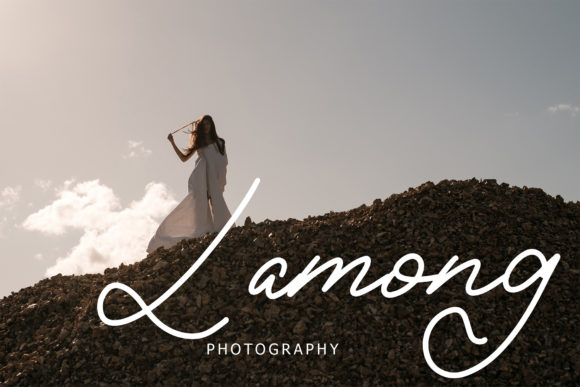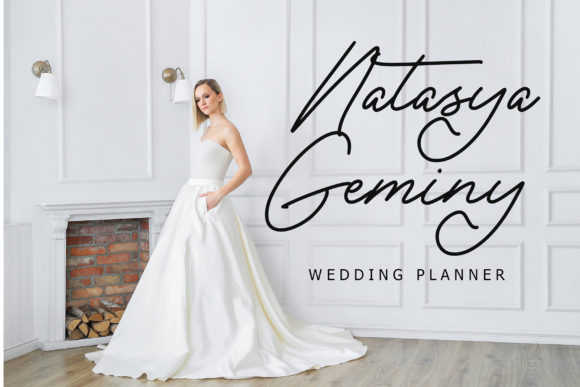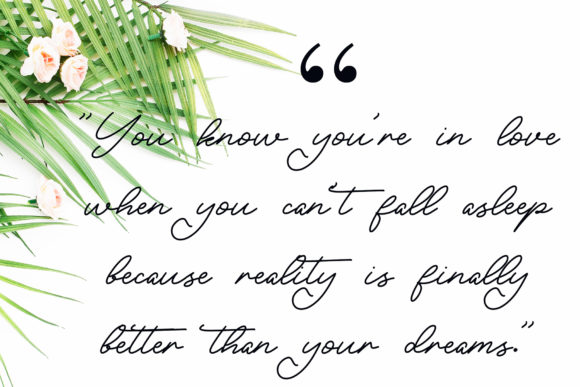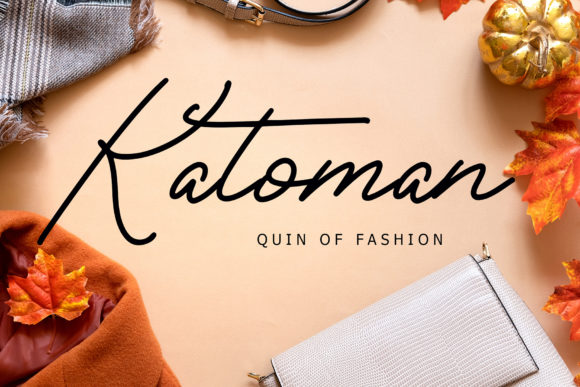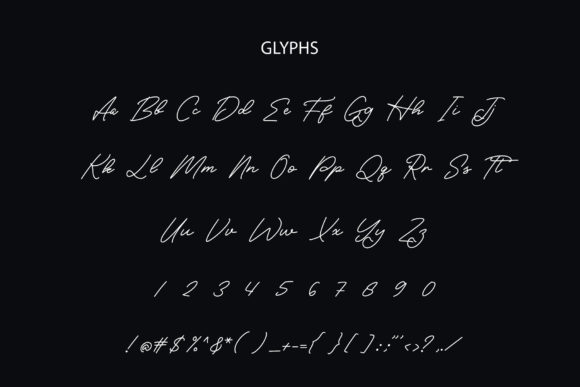
Have you ever found yourself stuck on a design project, staring at a blank screen, and suddenly, a spark of inspiration hits you? That’s exactly what happened to me when I discovered the Fegitan Font. Its elegant script style is like a breath of fresh air, and I knew right then and there that I had to learn more about it.
Fegitan Font is a beautifully crafted script font that’s perfect for creating stunning visual content. Whether you’re designing wedding invitations, social media posts, or stationery art, this font is sure to elevate your work and leave a lasting impression. As a designer, you’ll appreciate the versatility and sophistication that Fegitan Font brings to your projects, making it a valuable addition to your design toolkit.
Fegitan Font Key Features
- Font Family: Fegitan Font is a unique, custom-designed font family.
- Character Set: Supports a wide range of languages, including Latin, Cyrillic, and Greek alphabets, with over 1,000 characters.
- Unique Characteristics: Features a distinctive, elegant design with subtle flourishes and intricate details, making it ideal for high-end branding and design projects.
Fegitan Font Review
I recently had the chance to work with the Fegitan Font, and I must say it’s been an interesting experience. ✨ One thing that stands out is its unique, exotic feel. The font is inspired by traditional African scripts, which gives it a rich cultural heritage. The designer has done a great job of preserving the essence of these scripts while making them legible for modern use.
- ✨ Unique and exotic feel
- ✨ Rich cultural heritage
- ✨ Well-suited for headings and titles
However, there are some limitations that need to be considered. ⚠️ The font may not be suitable for large blocks of text, as the characters can be quite ornate and may lead to readability issues. Additionally, the font may require some tweaking to work well in certain digital environments.
- ⚠️ May not be suitable for large blocks of text
- ⚠️ May require tweaking for digital environments
Overall, I’d say the Fegitan Font is a great choice for designers looking to add some cultural flair to their projects. While it may have some limitations, its unique feel and rich heritage make it a valuable addition to any font collection.
Tips for Getting the Most Out of Fegitan Font
Use Fegitan Font to add a unique touch to your designs.
Combine Fegitan Font with other fonts to create a cohesive design.
Use Fegitan Font for:
Logo design
Brand identity
Marketing materials
Print design
Alternatives to Fegitan Font
Great Vibes Font is a beautiful, elegant script font that works well for titles, quotes, and other decorative text elements. It is a great alternative to Fegitan Font for projects that require a more classic and sophisticated look.
Comparison to Fegitan Font: While both fonts have a similar elegant feel, Great Vibes Font has a more classic and refined look, making it suitable for a wider range of projects.
Pacifico Font is a modern script font that works well for titles, headings, and other text elements where a touch of elegance is needed. It is a great alternative to Fegitan Font for projects that require a more contemporary and stylish look.
Comparison to Fegitan Font: While both fonts have a similar elegant feel, Pacifico Font has a more modern and sleek look, making it suitable for projects that require a more contemporary aesthetic.
Carolyna Pro Font is a elegant, modern script font that works well for titles, headings, and other text elements where a touch of sophistication is needed. It is a great alternative to Fegitan Font for projects that require a more refined and stylish look.
Comparison to Fegitan Font: While both fonts have a similar elegant feel, Carolyna Pro Font has a more refined and modern look, making it suitable for projects that require a more contemporary and sophisticated aesthetic.